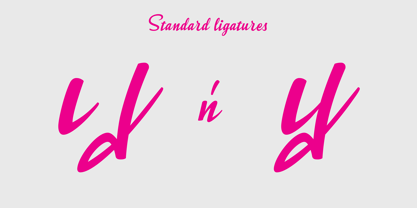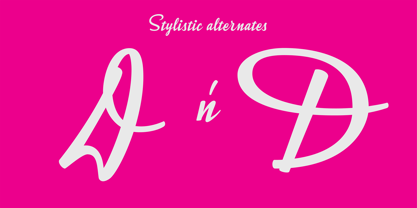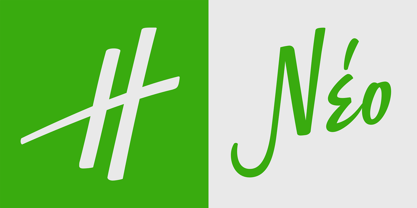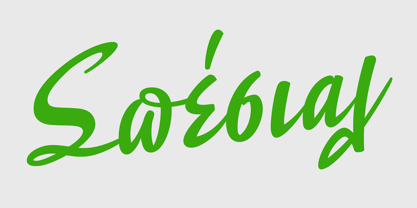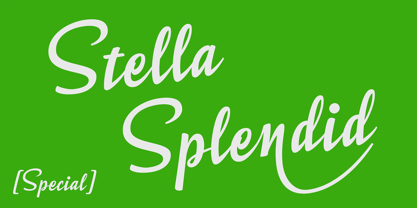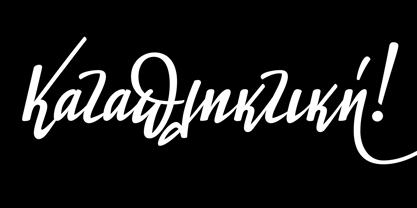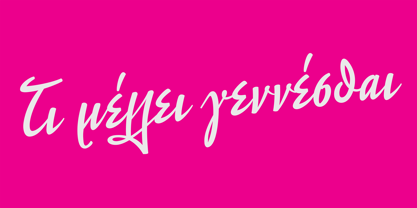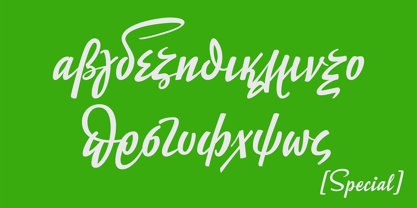
Stella Splendid Special
The Stella Splendid Special Font Family was designed by Panos Haratzopoulos and published by Fonts.GR. Stella Splendid Special contains 1 styles. More about this family
Stella Splendid is probably the most characteristic Stella Project font. It draws inspiration from the printed advertisments in the 1950s and 1960s. It is characterized by a pronounced expressive chapter of a capital letter, which is followed by robust lowercase letters in which one or more share similar expressive characteristics. The basic rules of calligraphy (baseline, heights, widths) are not necessarily followed but the calligraphers’ main concern is to draw the attention of the reader through dynamic writing and flamboyant manner. Stella Splendid’s design was performed with an “anarchic” look and without strict rules of calligraphic style to express the general idea, while at the same time all this material had to be standardized to follow the necessary technical constraints. The font consists of two styles, Serano and Special, with a mild and dynamic character respectively, and a variety of alternatives forms and ligatures. The user is asked to combine them in a creative way, using variable character forms –even n the same word or phrase– in order to achieve a dynamic and random effect.